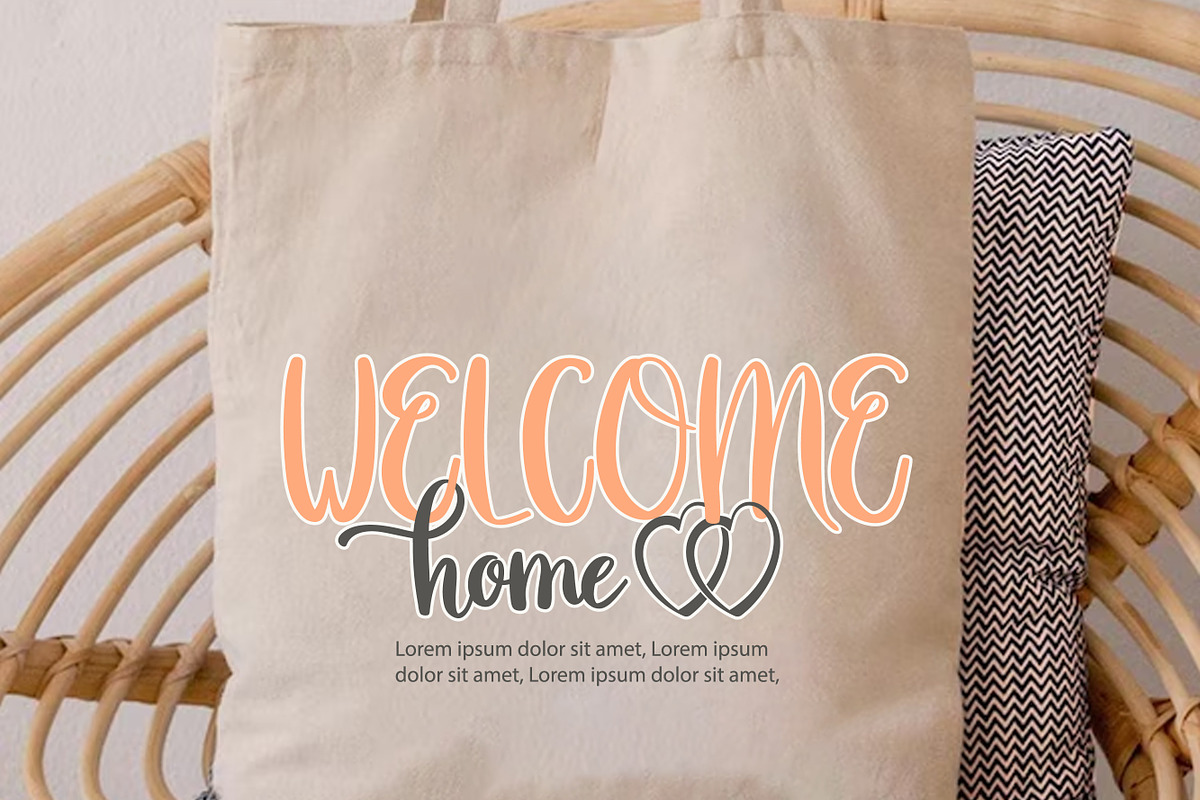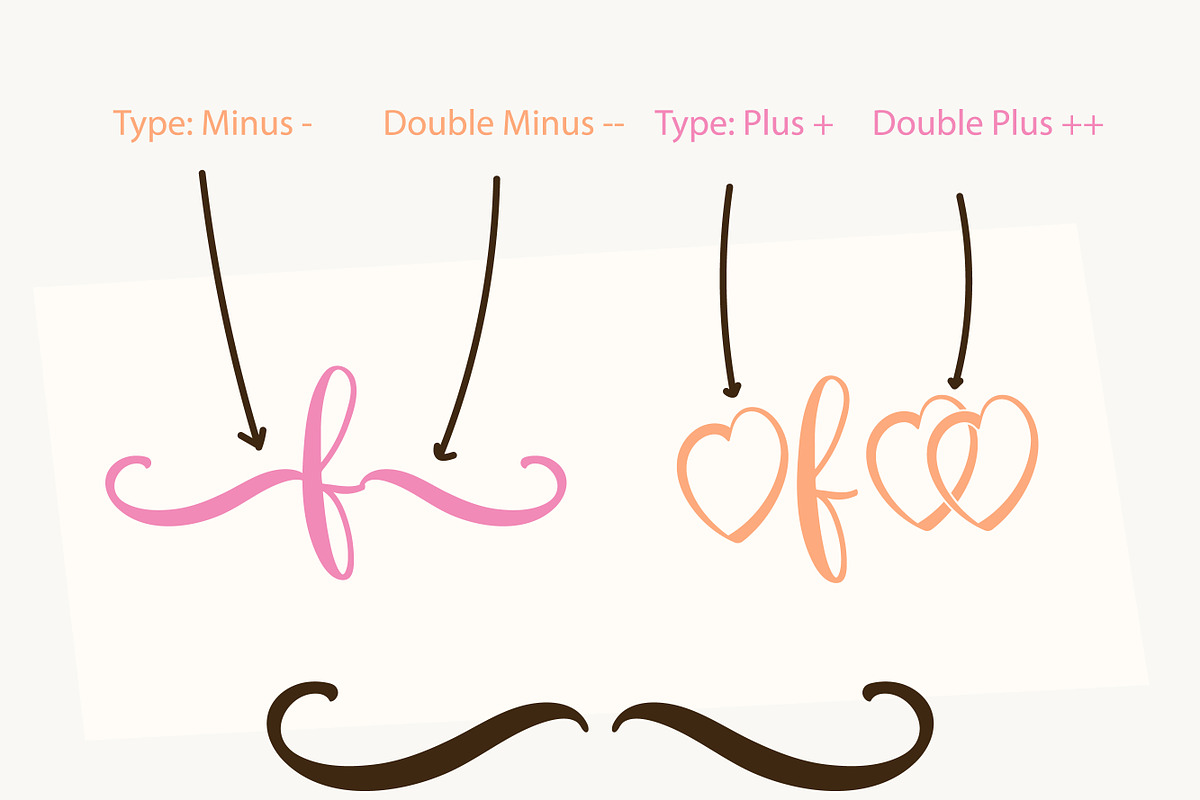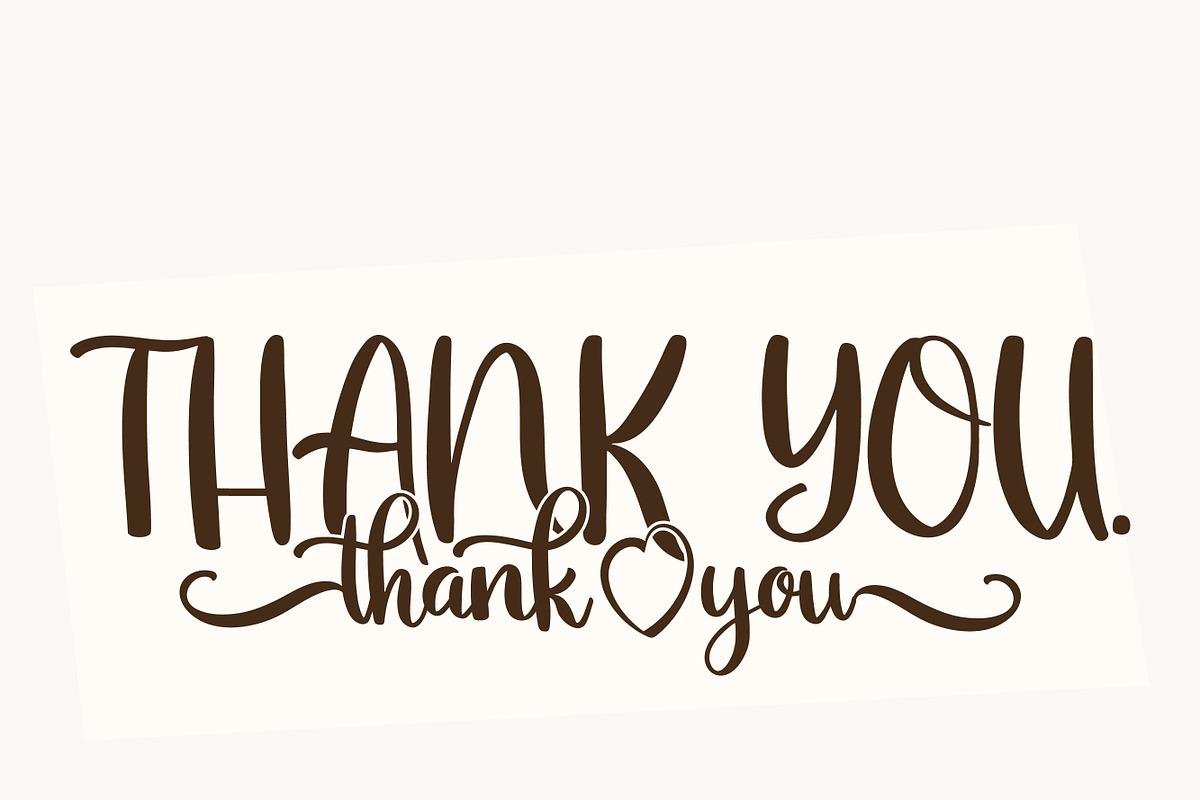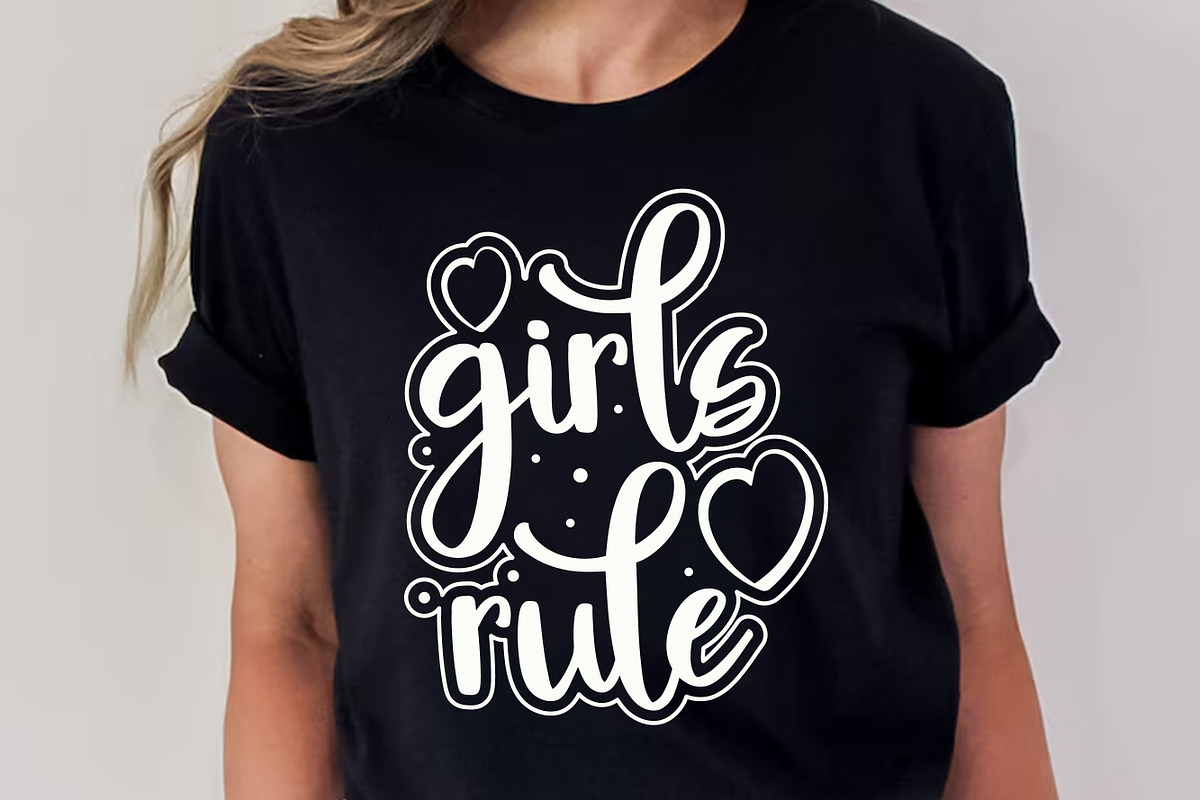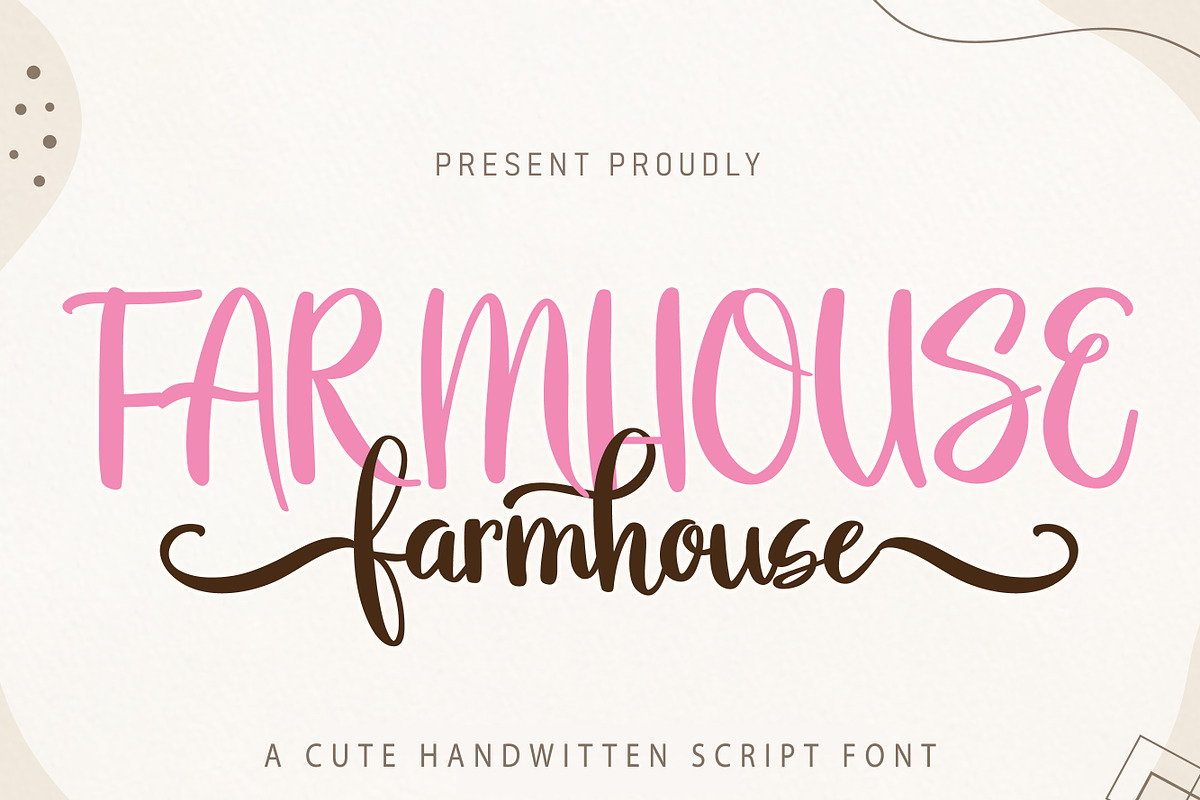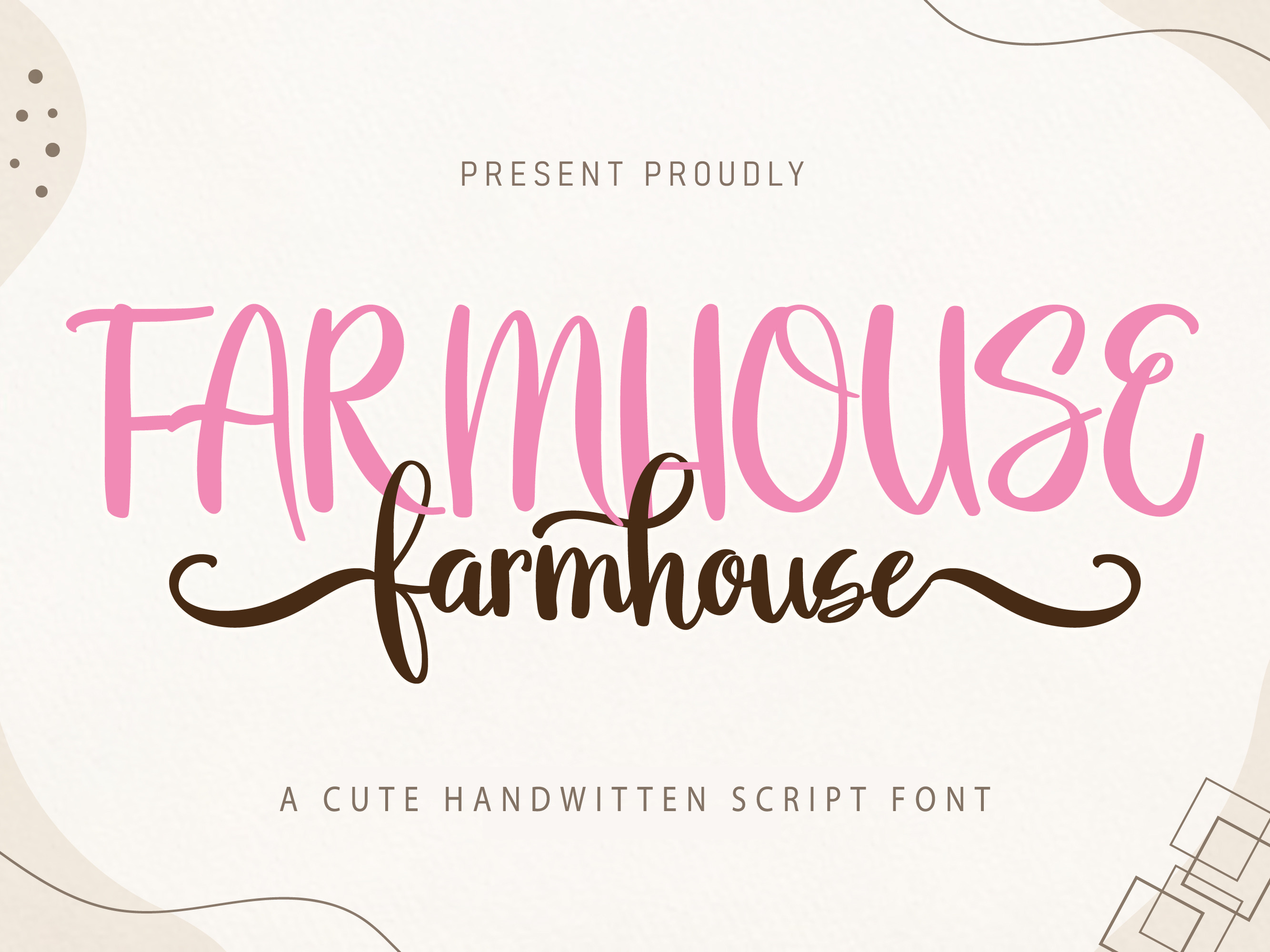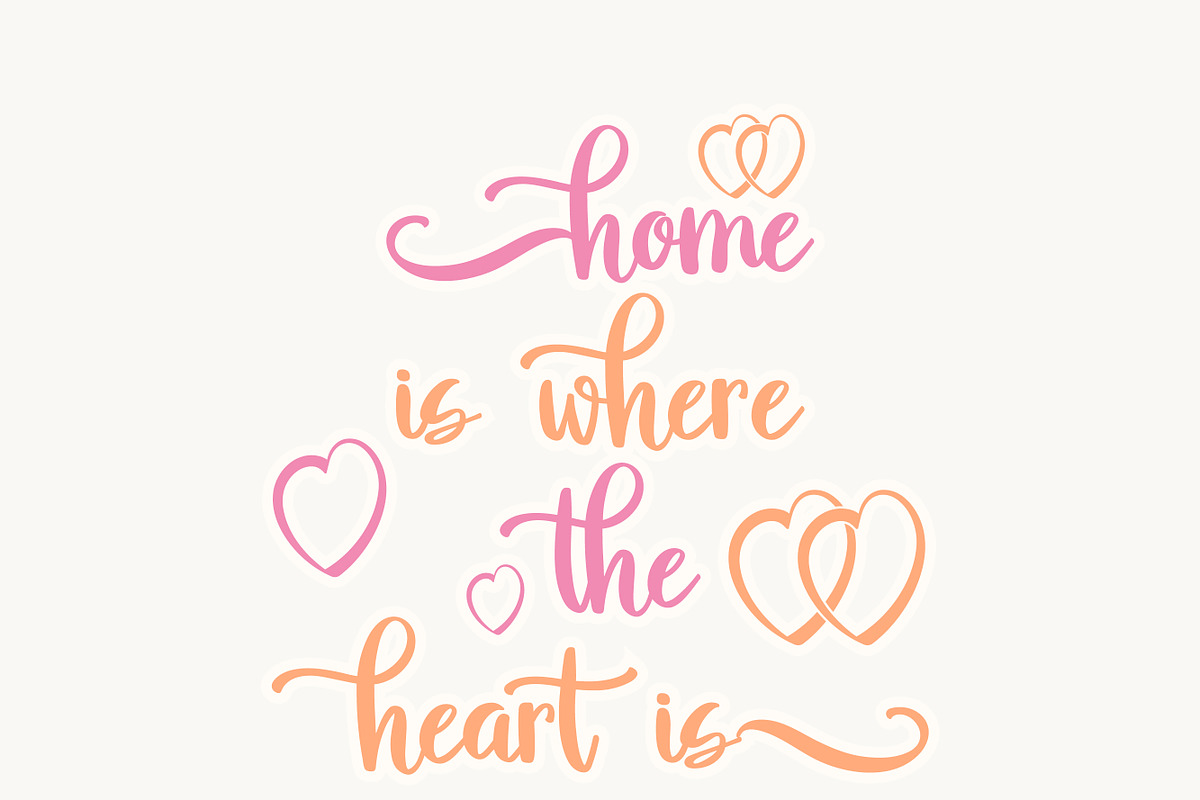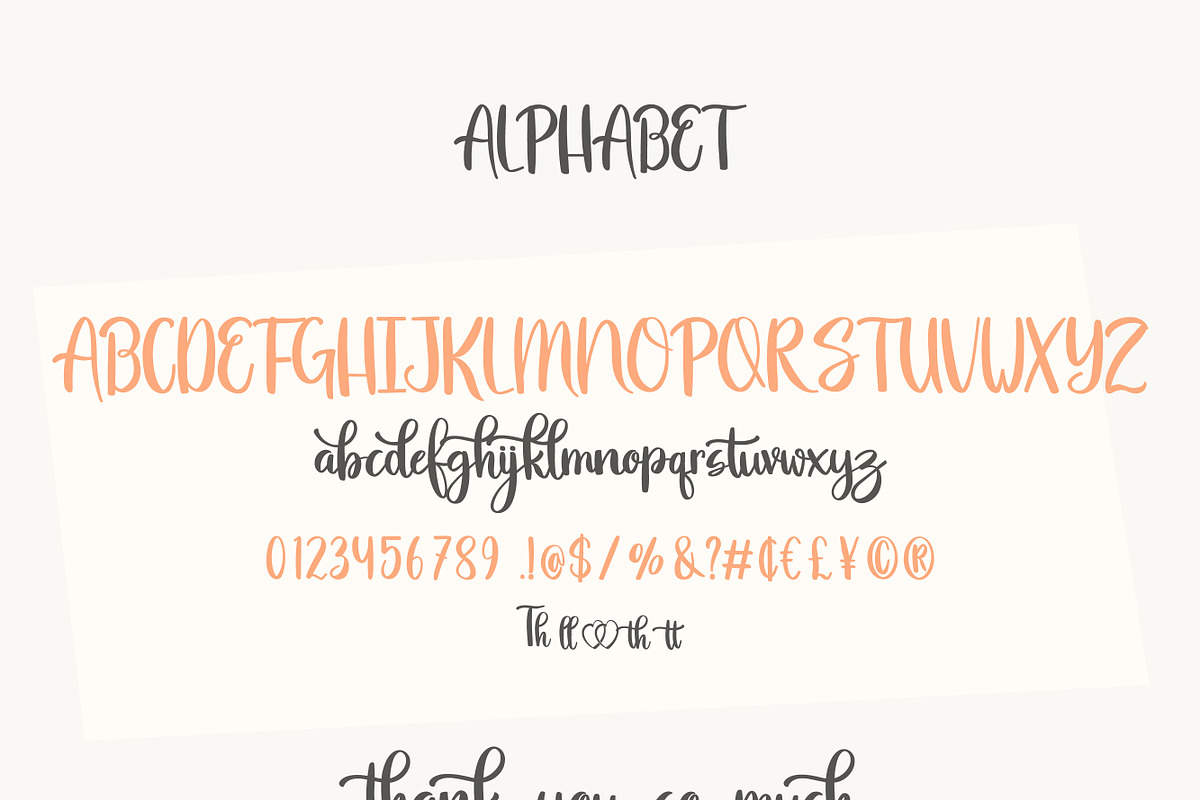
Farmhouse - Handwritten font
Farmhouse script font brings brings a touch of merriment to your festive messages and designs style: a sans with script font and an elegant font. This Handwritten font carefully crafted for a cool and unique design. It looks like elegant cursive writing, perfect for adding a personal and stylish touch to letters, invitations, food products, titles, and more.